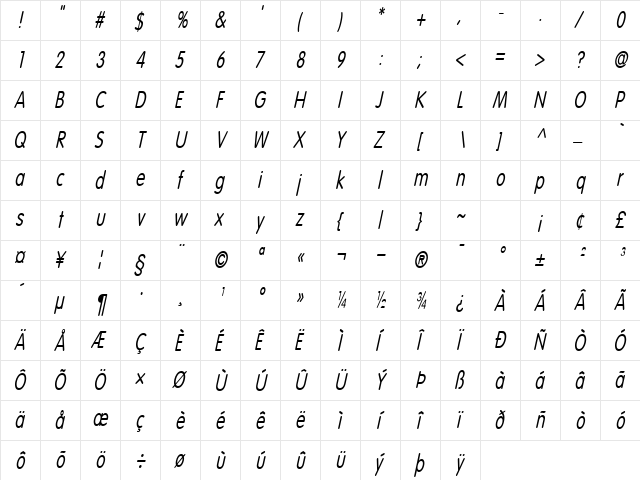
CorporateRoundedCondensed Oblique Font Preview
Design Context for CorporateRoundedCondensed Typeface
CorporateRoundedCondensed uses gentle rounded endings to create a warm, inviting typographic personality — less corporate than geometric sans, more refined than playful display fonts. The dynamic lean of this cut emphasises speed and emphasis in any layout.
Well-suited to UI design, mobile interfaces, and any brand that wants approachability without sacrificing clarity.
Font Pairing: Pairs well with a rounded or humanist sans for body copy, maintaining the friendly tone without relying on CorporateRoundedCondensed to carry extended reading.
Pro Tip: Use CorporateRoundedCondensed for UI elements, app interfaces, and anywhere a friendly, approachable tone needs to be maintained without sacrificing clarity.